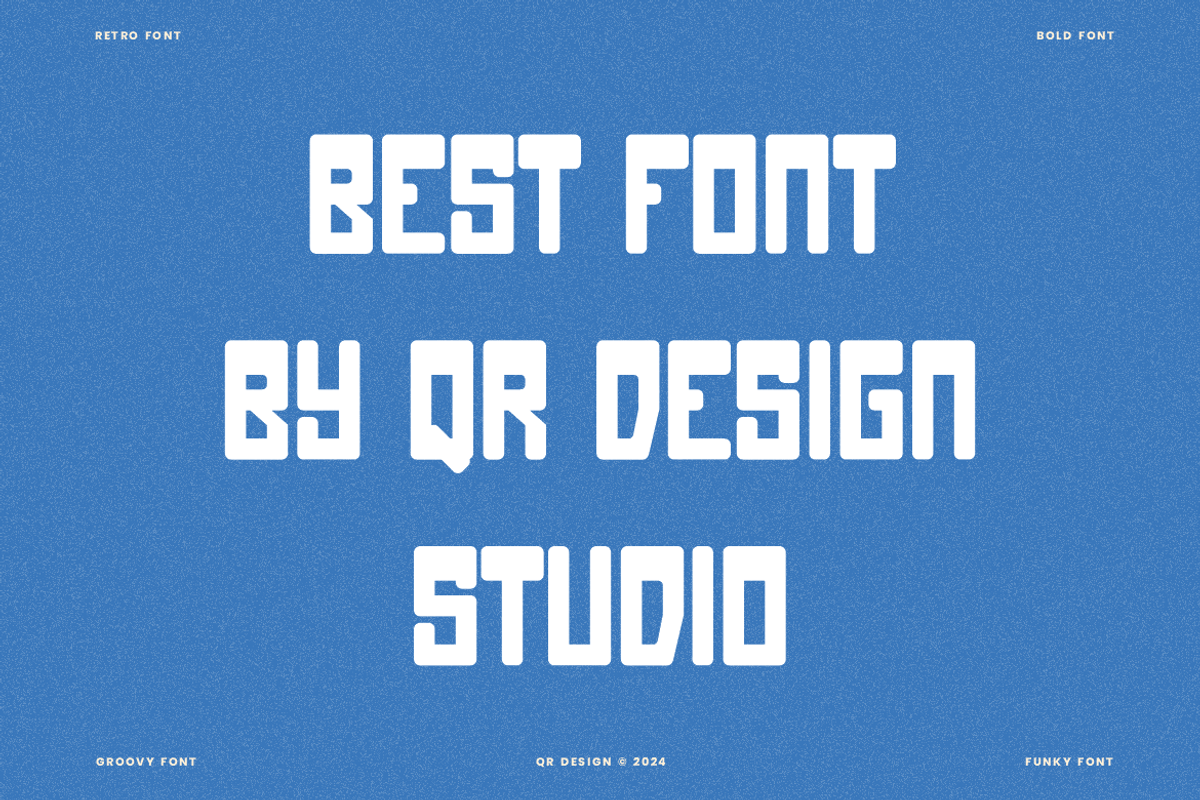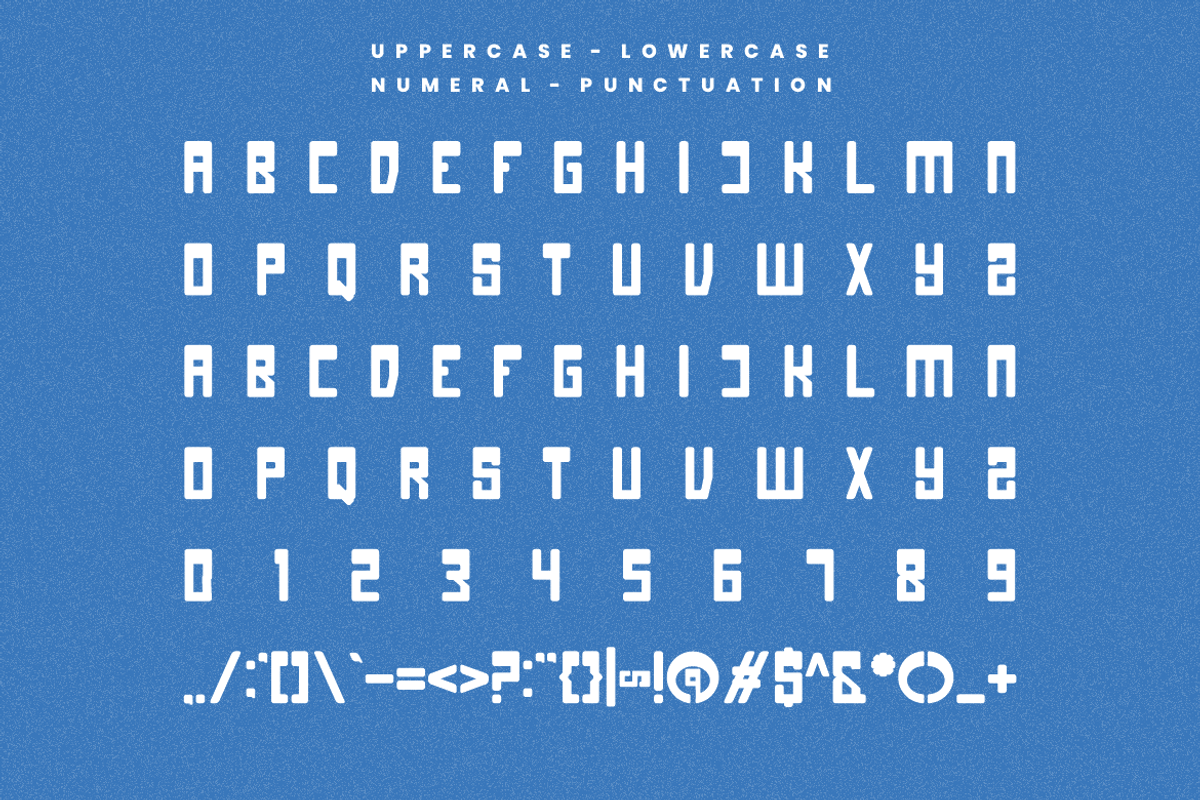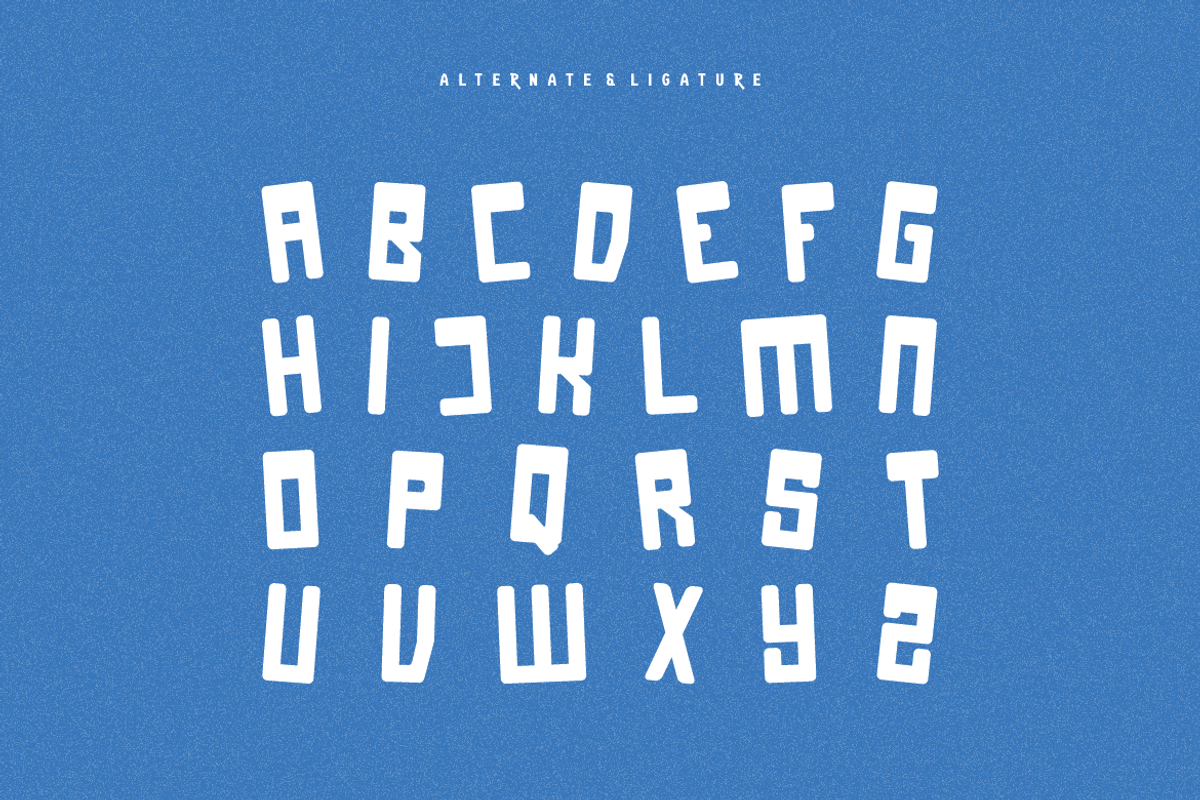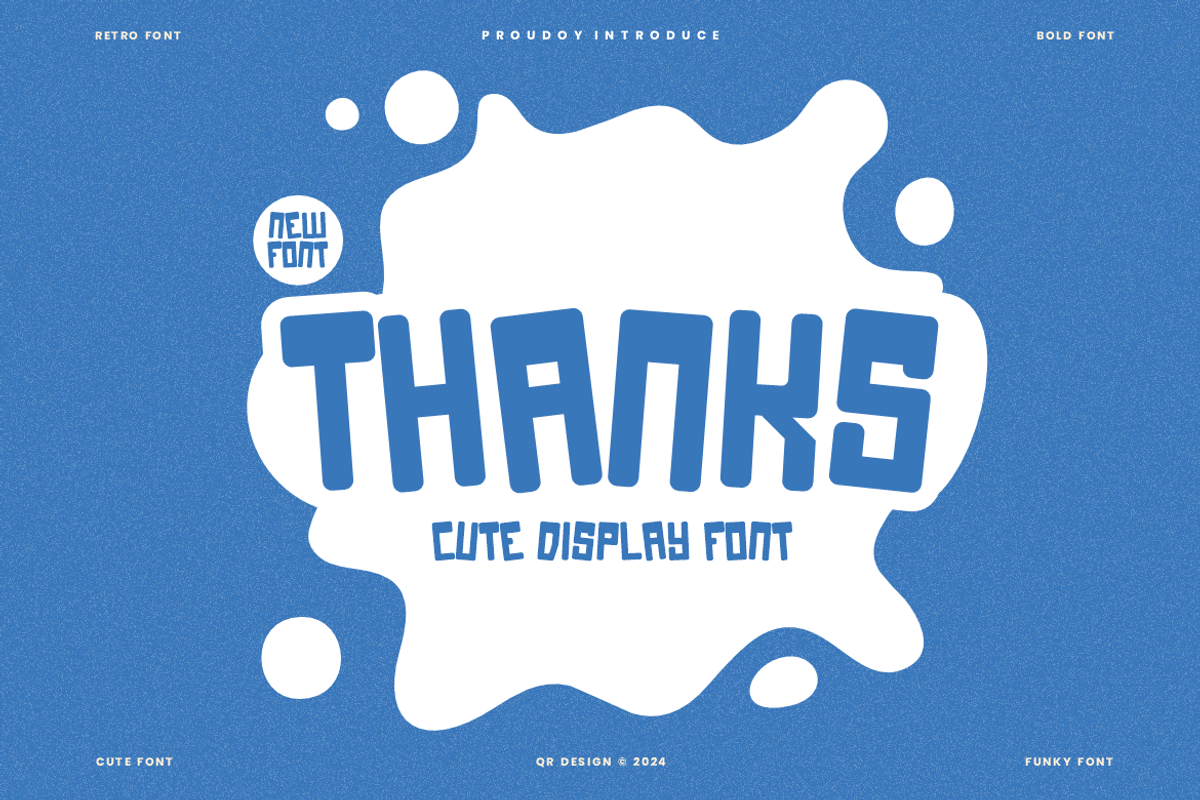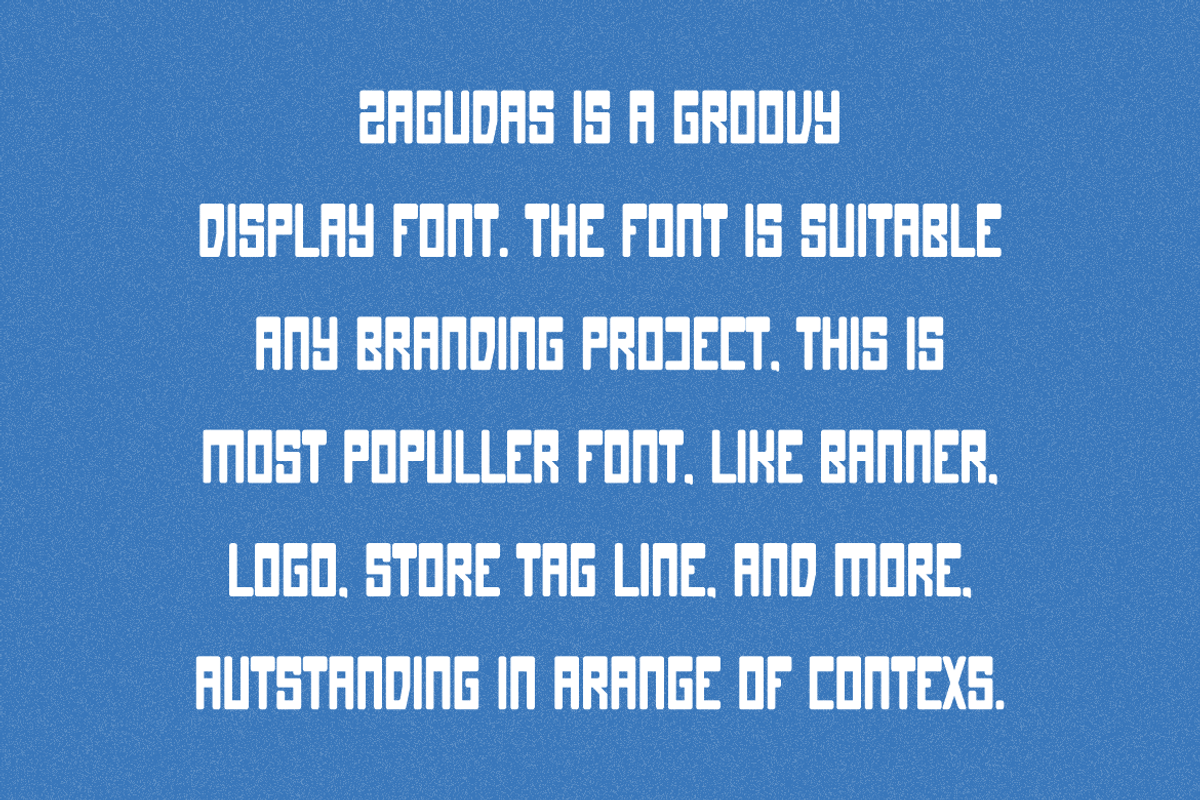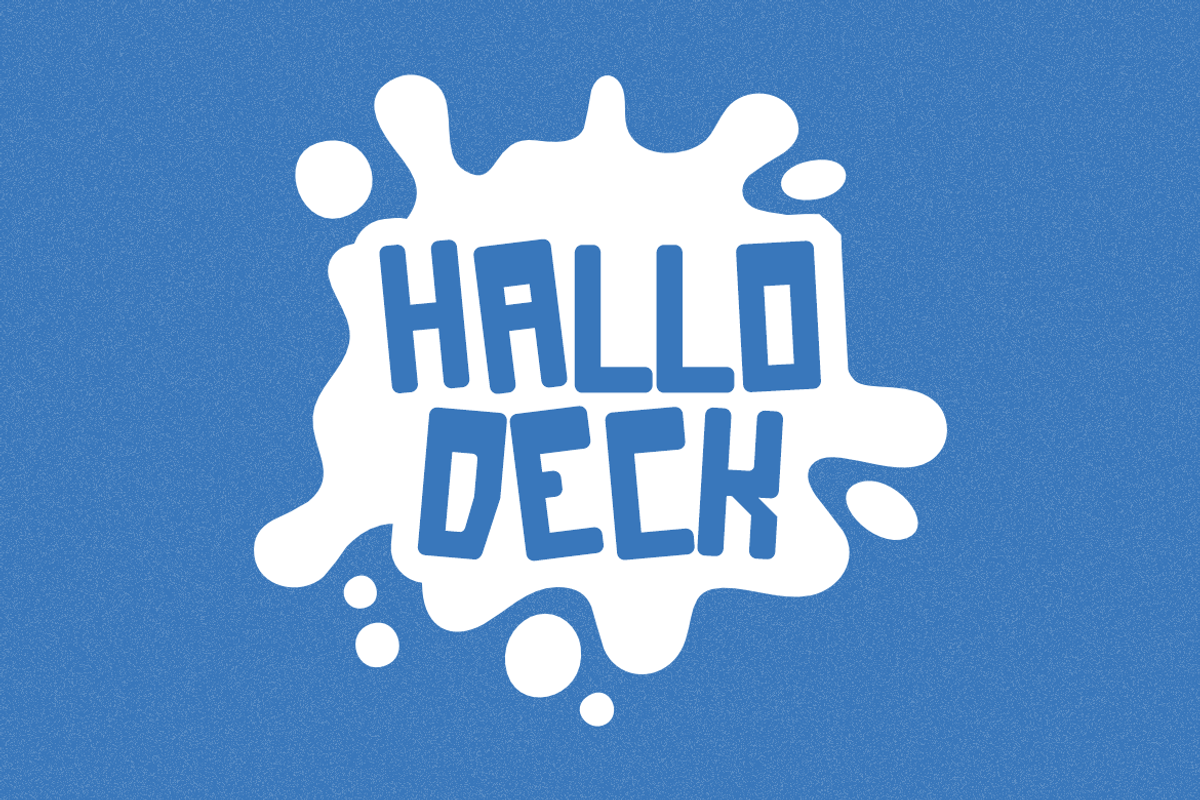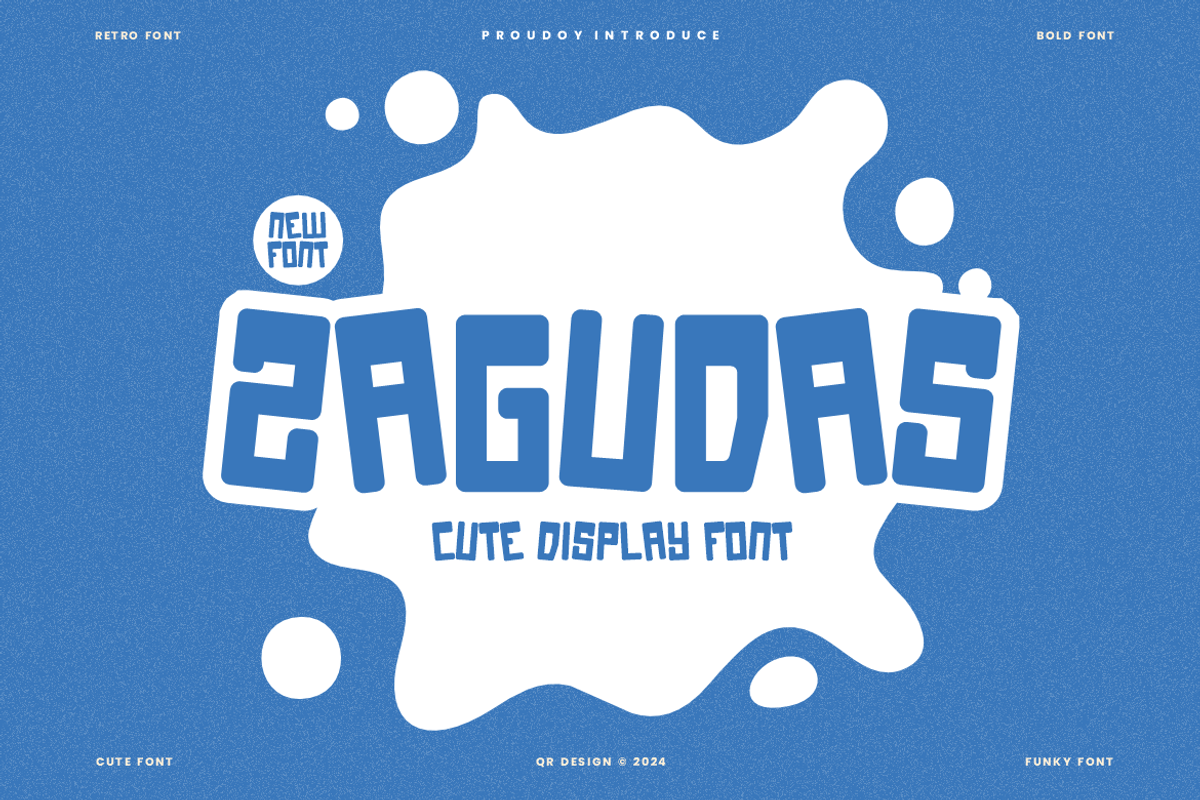
Zagudas - Kids Font
Zagudas - Kids Font is a bold and authentic display font. The font is suitable for any branding project like poster, logo, sport, and many more. Outstanding in a wide range of contexts.